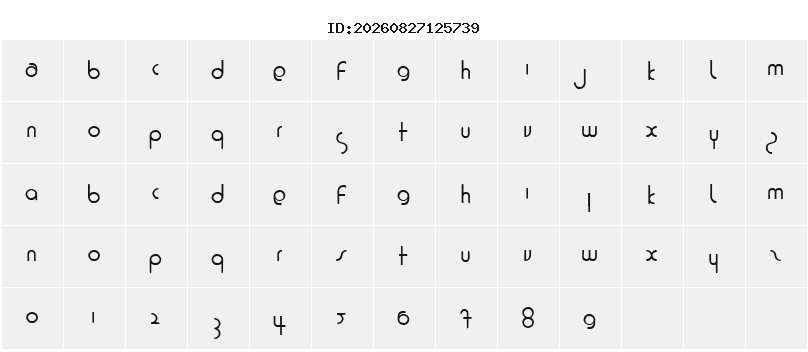
1920.ttf is a modern, elegant sans-serif font designed for ultimate readability and visual harmony. Perfect for branding, headlines, web design, and print materials.